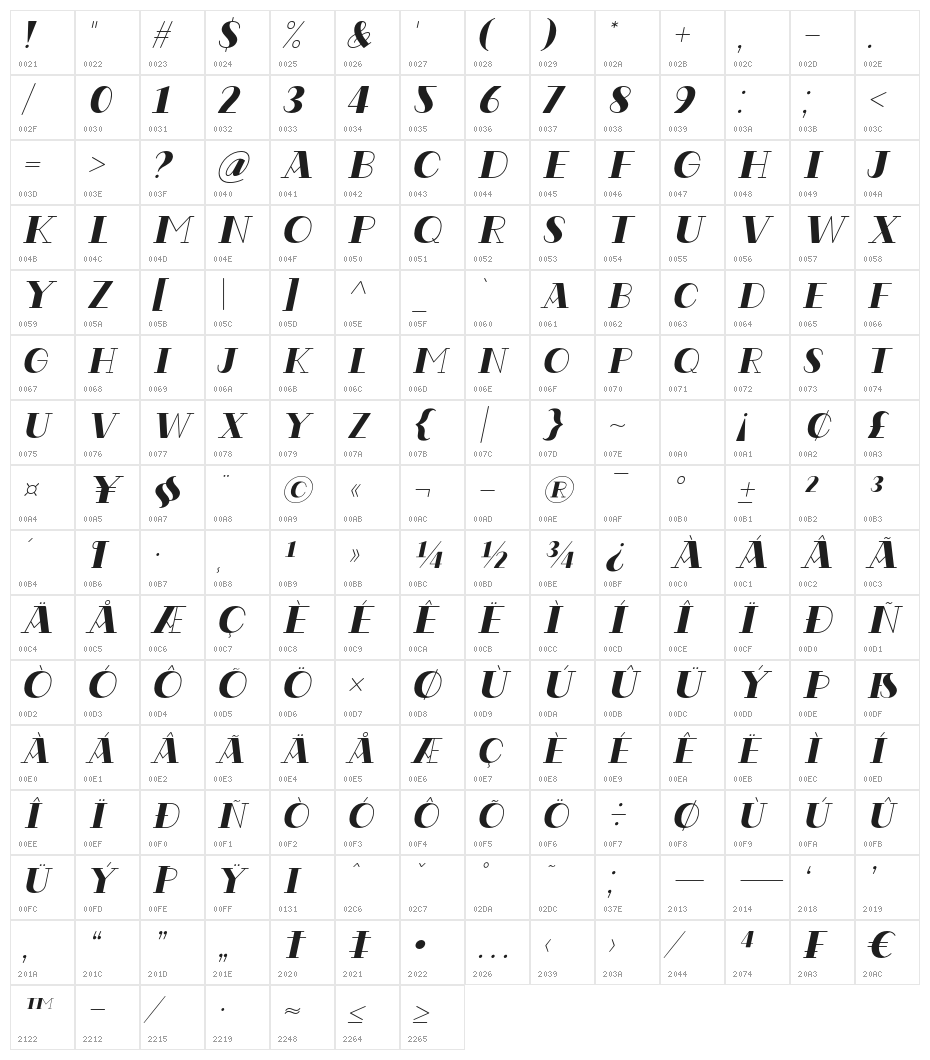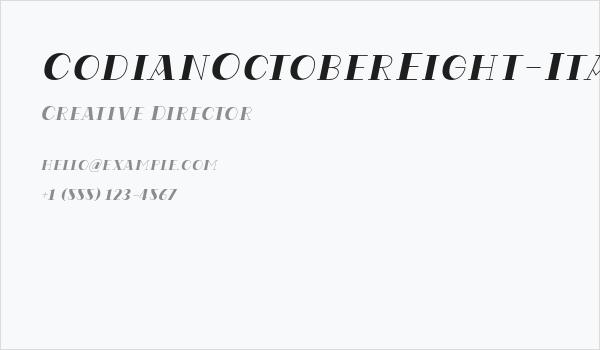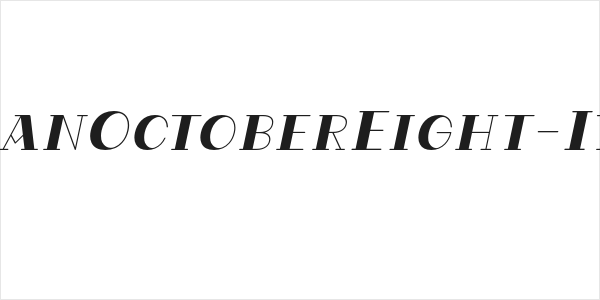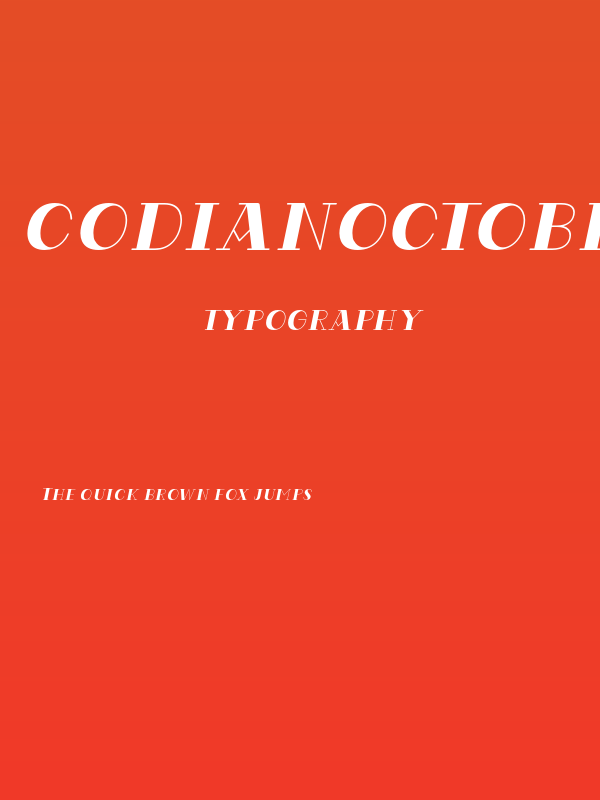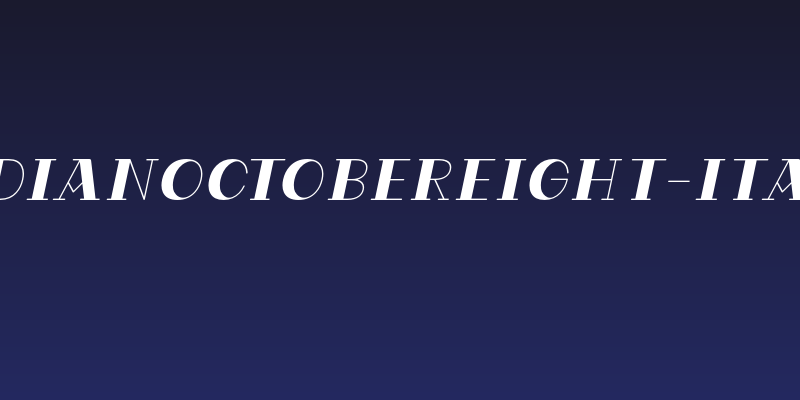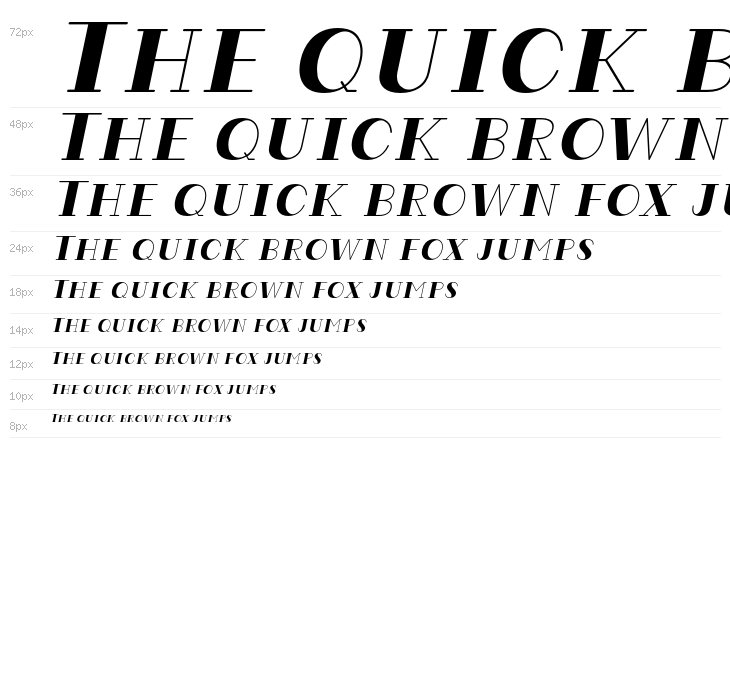
CodianOctoberEight-Italic Font
CodianOctoberEight-Italic Description
This font features a sophisticated and elegant italic style, characterized by its smooth, flowing lines and refined serifs. The letters are slightly slanted, adding a dynamic and graceful touch to the text. The uppercase letters are bold and commanding, while the lowercase letters maintain a consistent flow, enhancing readability. The numerals are well-proportioned, complementing the overall aesthetic. Special characters are thoughtfully designed, maintaining the font's cohesive appearance. This font is ideal for projects that require a touch of elegance and sophistication.
| Proposed Projects | Ideal for wedding invitations, luxury branding, editorial design, and elegant packaging. |